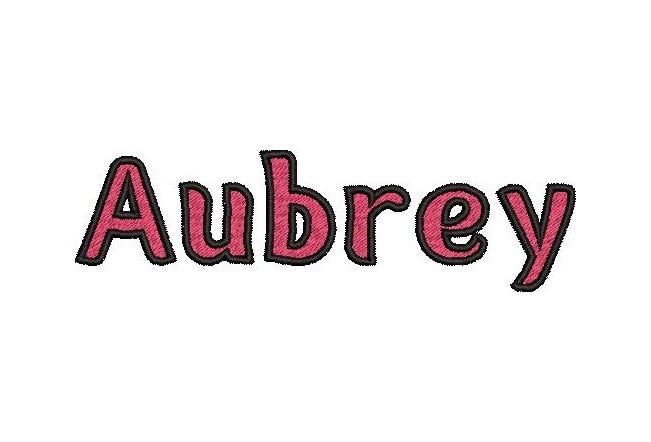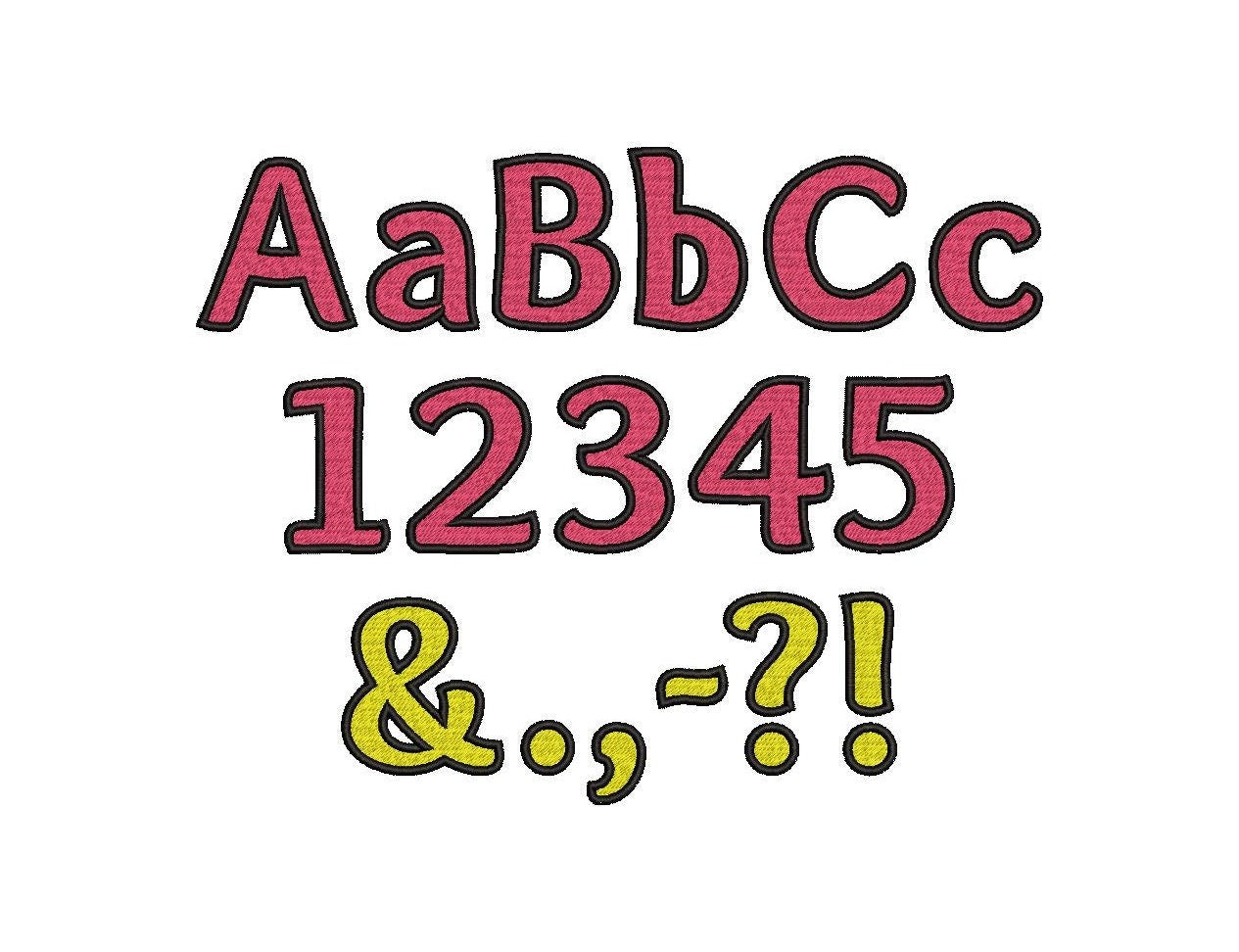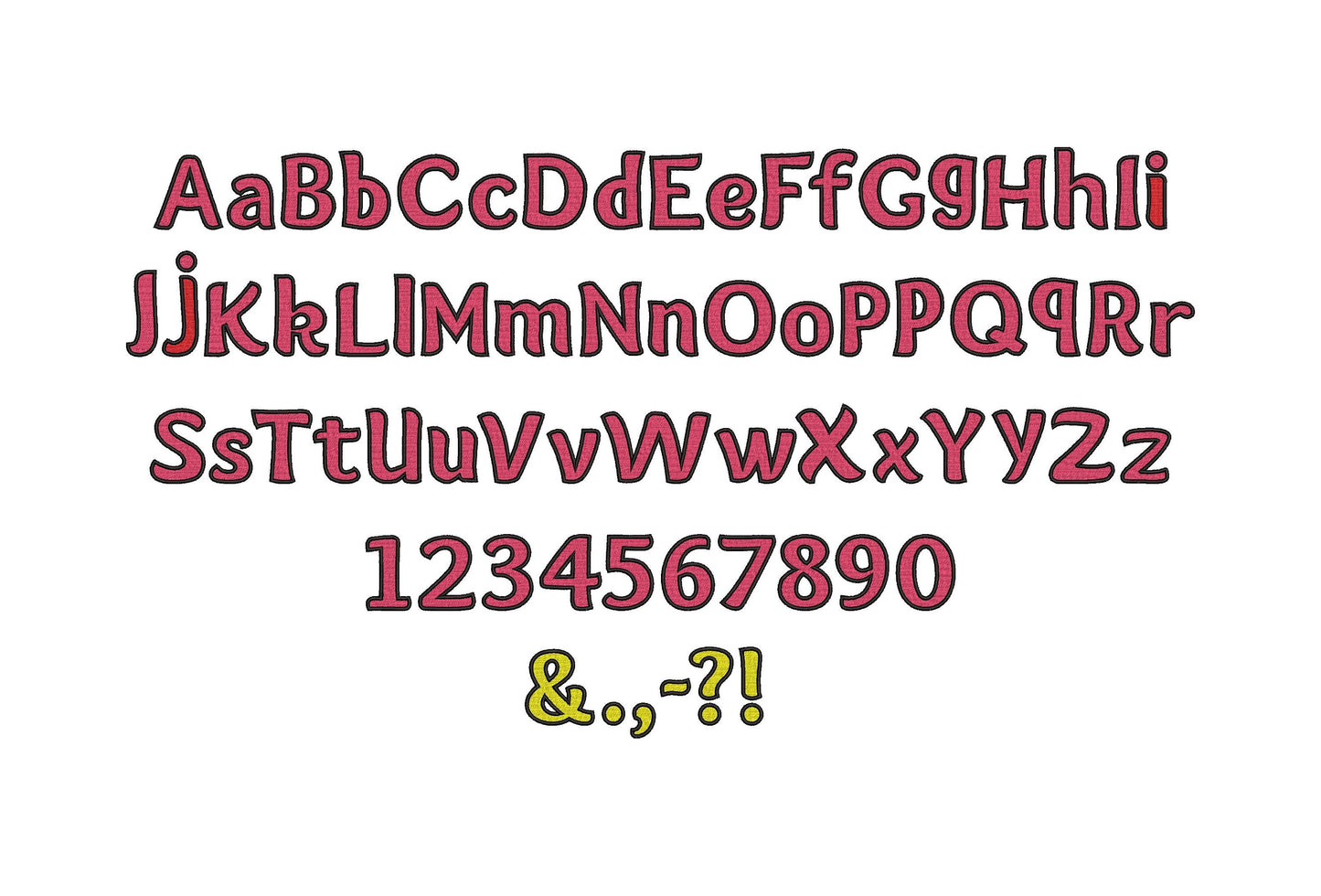
Bold Fill Stitch and Outline Kids Font
Or click to open the linkA bold block kids' font in fill stitch with a solid outline, for names and monograms on shirts, bags and pillows.
Uppercase and lowercase letters, numbers and punctuation in six sizes: 1, 1.3, 1.5, 2, 2.5 and 3 inches.
- Bold fill stitch block font with outline
- Uppercase, lowercase, numbers 0-9, punctuation
- 6 sizes, 1 to 3 in